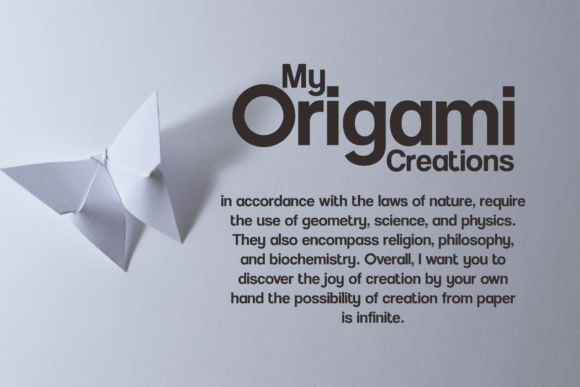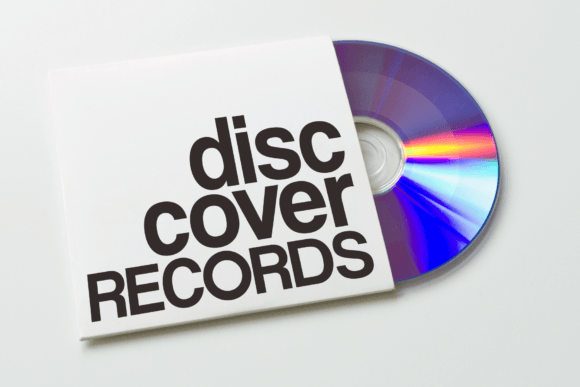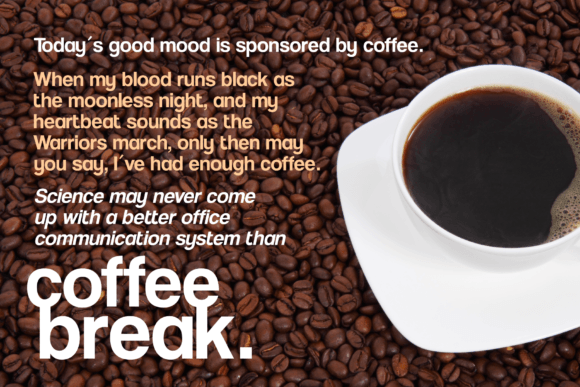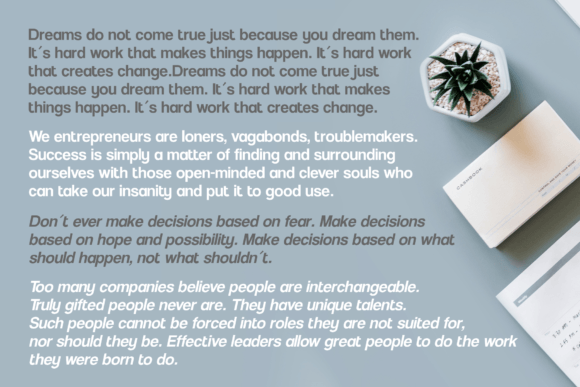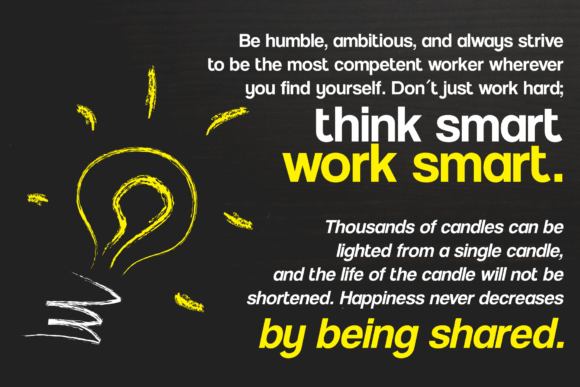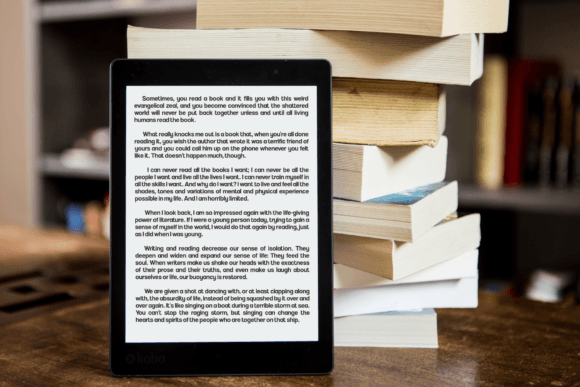
Davetica Font: Elevate Your Designs with Elegance and Versatility
In the realm of typography, a new star has emerged: Davetica Font. Created by the innovative minds at Almaz Studio, Davetica is a brand new, elegant sans serif typeface that is poised to revolutionize the way designers and crafters approach their projects. With its sleek lines, modern aesthetic, and extensive language support, Davetica is the perfect addition to any creative arsenal.
Unleash Your Creativity with Davetica
Davetica is more than just a font; it’s a tool that unlocks a world of creative possibilities. Once installed on your computer, this versatile typeface can be used to create a wide array of projects, including:
- Posters: Make a bold statement with eye-catching posters that demand attention.
- Web Graphics: Enhance your website’s visual appeal with elegant headings, buttons, and icons.
- Game Graphics: Bring your game characters and interfaces to life with a font that exudes modernity.
- T-Shirts and Merchandise: Design apparel and accessories that stand out from the crowd.
- Videos: Add a professional touch to your video projects with crisp, clear text overlays.
- Signs: Create signs that are both informative and visually appealing.
- eBooks: Publish your written works with a font that is easy on the eyes.
- Logos: Craft memorable logos that embody your brand’s essence.
The Elegance of Sans Serif Typography
Davetica’s sans serif design lends it a clean, contemporary look that is both elegant and approachable. This style of typography is highly versatile, making it suitable for a wide range of applications, from digital media to print. The font’s sleek lines and carefully crafted letterforms ensure that your text is not only readable but also visually engaging.
Extensive Language Support
In today’s globalized world, the ability to communicate across linguistic and cultural boundaries is more important than ever. Davetica Font rises to this challenge by supporting almost all current Latin-based languages. This extensive language support makes Davetica an invaluable resource for designers and businesses looking to reach a broad audience.
Why Choose Davetica?
With so many fonts available, why should Davetica be your top choice? Here are just a few compelling reasons:
- Elegance: Davetica brings a touch of sophistication to any project.
- Versatility: From digital to print, Davetica performs exceptionally well across various mediums.
- Readability: Its clear, sans serif design ensures that your message is conveyed effectively.
- Language Support: Communicate with a global audience thanks to its extensive language support.
Davetica Font by Almaz Studio is a game-changer for designers and crafters seeking to elevate their projects with a touch of elegance and versatility. Its modern sans serif design, extensive language support, and wide range of applications make it an indispensable tool in the world of typography. Whether you’re creating digital content, print materials, or anything in between, Davetica is poised to become your go-to font for years to come.
Embark on your creative journey with Davetica today and discover the difference that this exceptional typeface can make in your work.